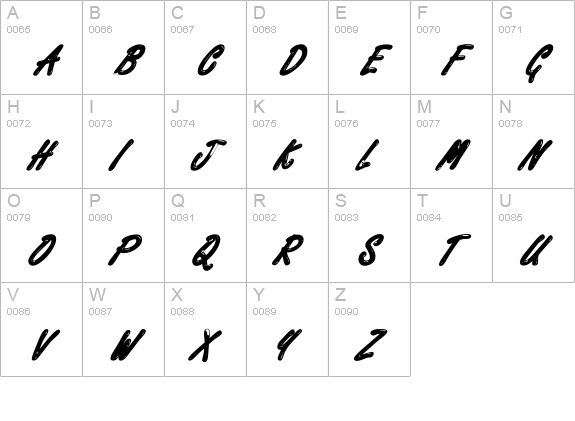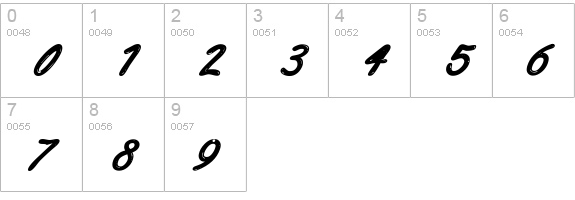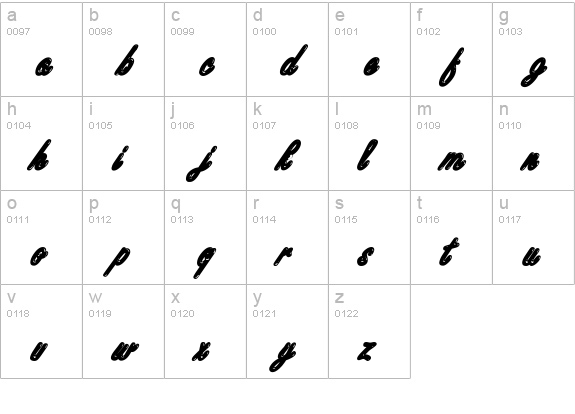
Introducing Encino BoldItalic font, a dynamic and eye-catching typeface that exudes elegance and sophistication. With its bold and italic style, Encino is perfect for creating striking headlines, titles, and branding materials that demand attention. This versatile font is designed to make a statement, whether used for print or digital design projects. The unique combination of bold strokes and italic angles gives Encino a modern and distinctive look that is sure to stand out. Best of all, Encino BoldItalic font is available for free download at FontsMarket.com. So, don't miss out on the opportunity to add this stunning font to your collection and elevate your designs to the next level. Download Encino BoldItalic today and unleash your creativity with this stylish and versatile typeface.